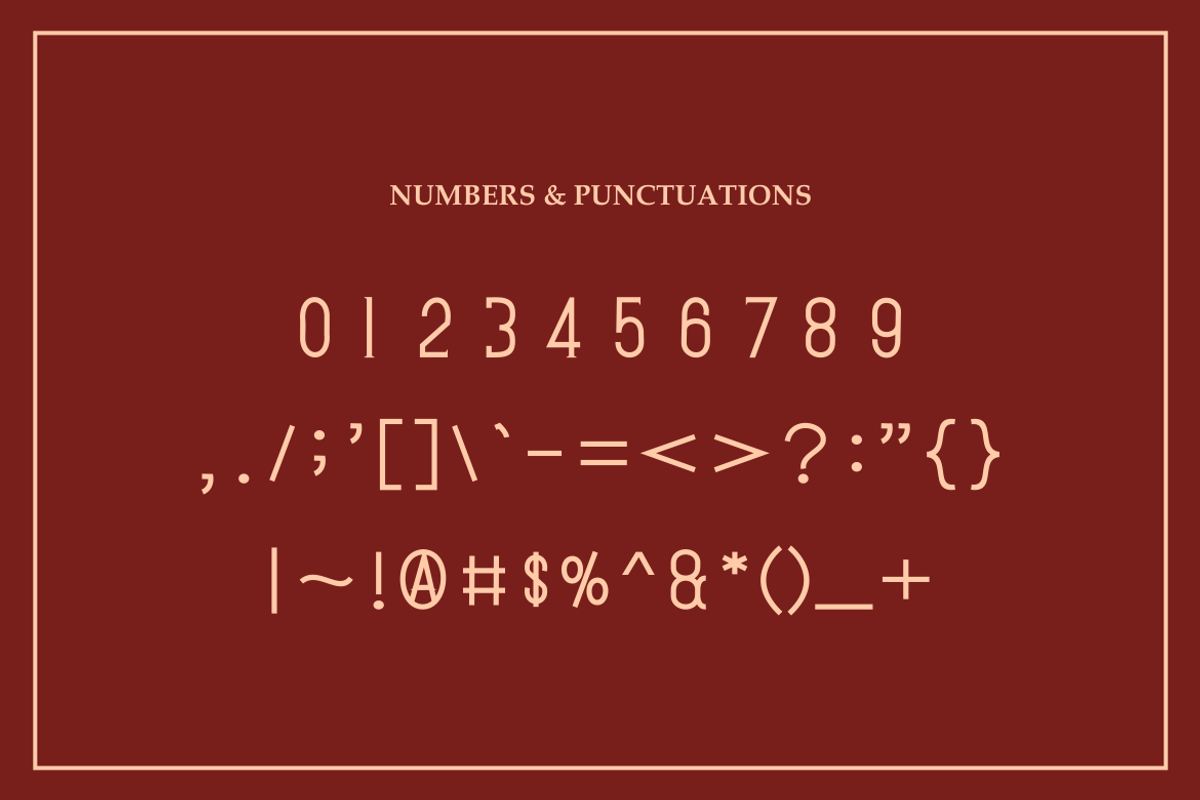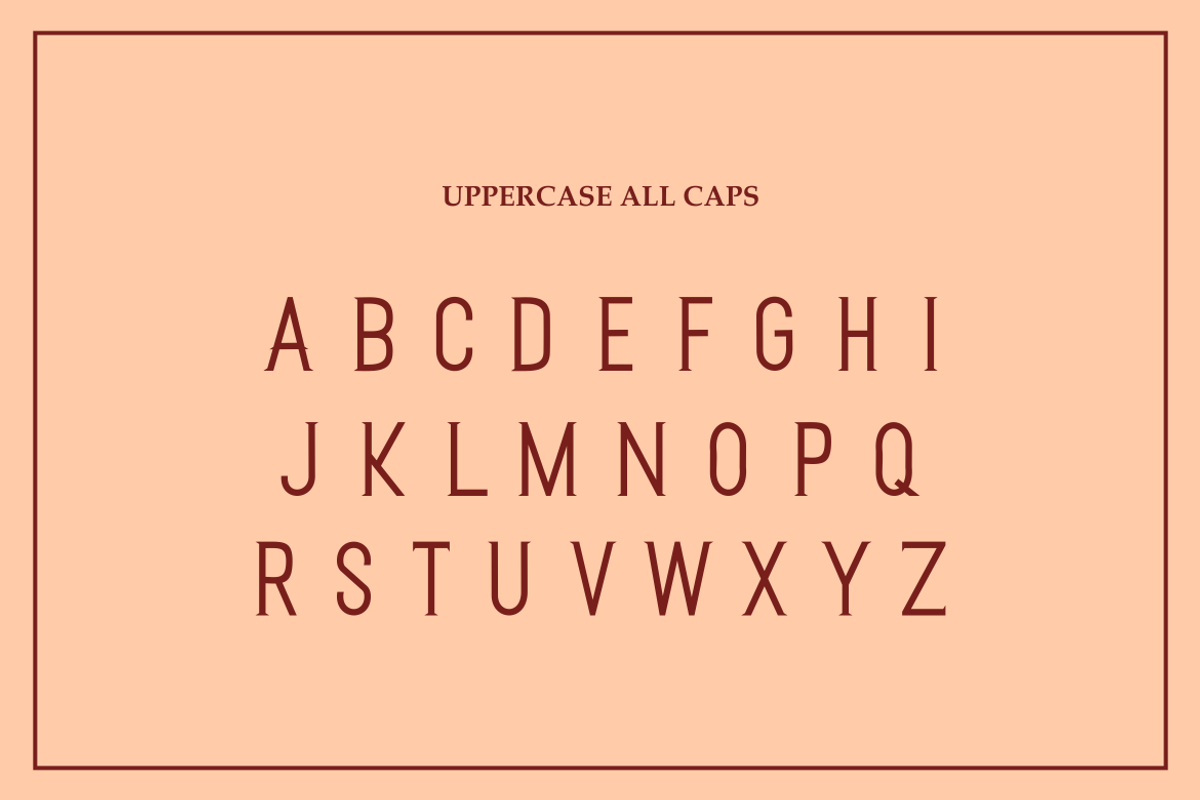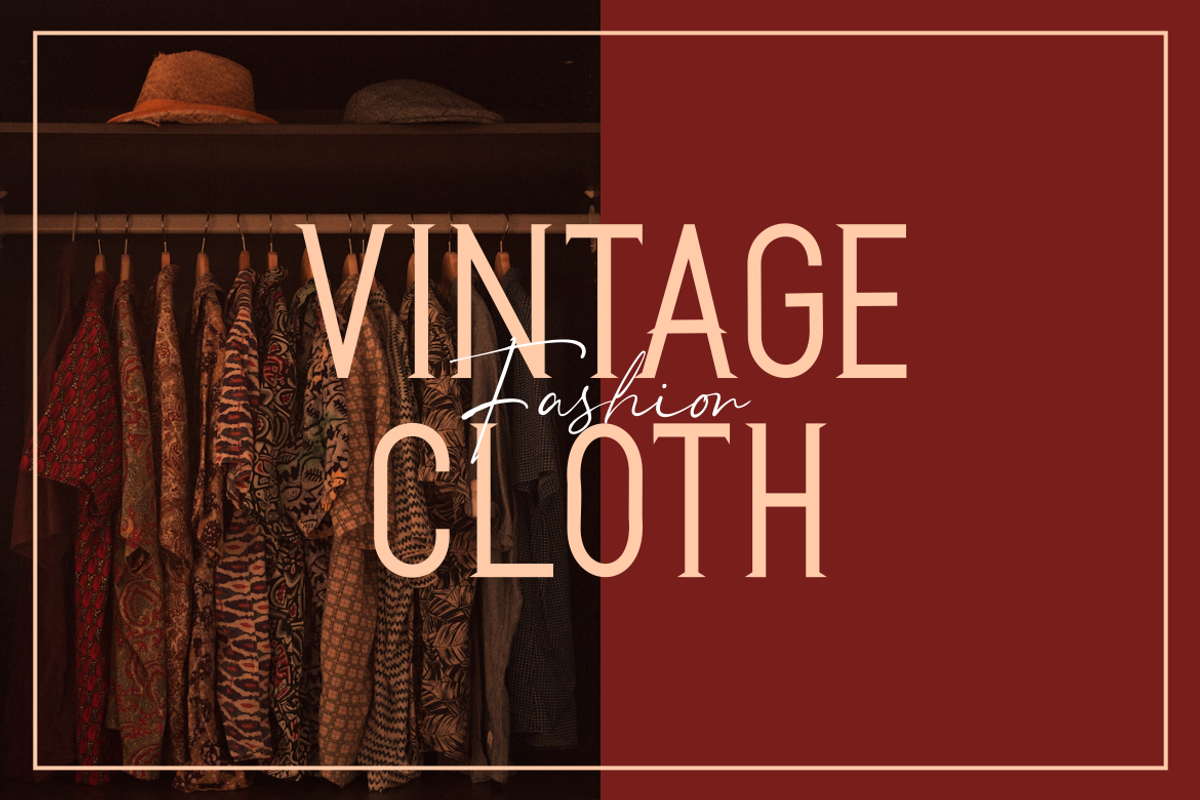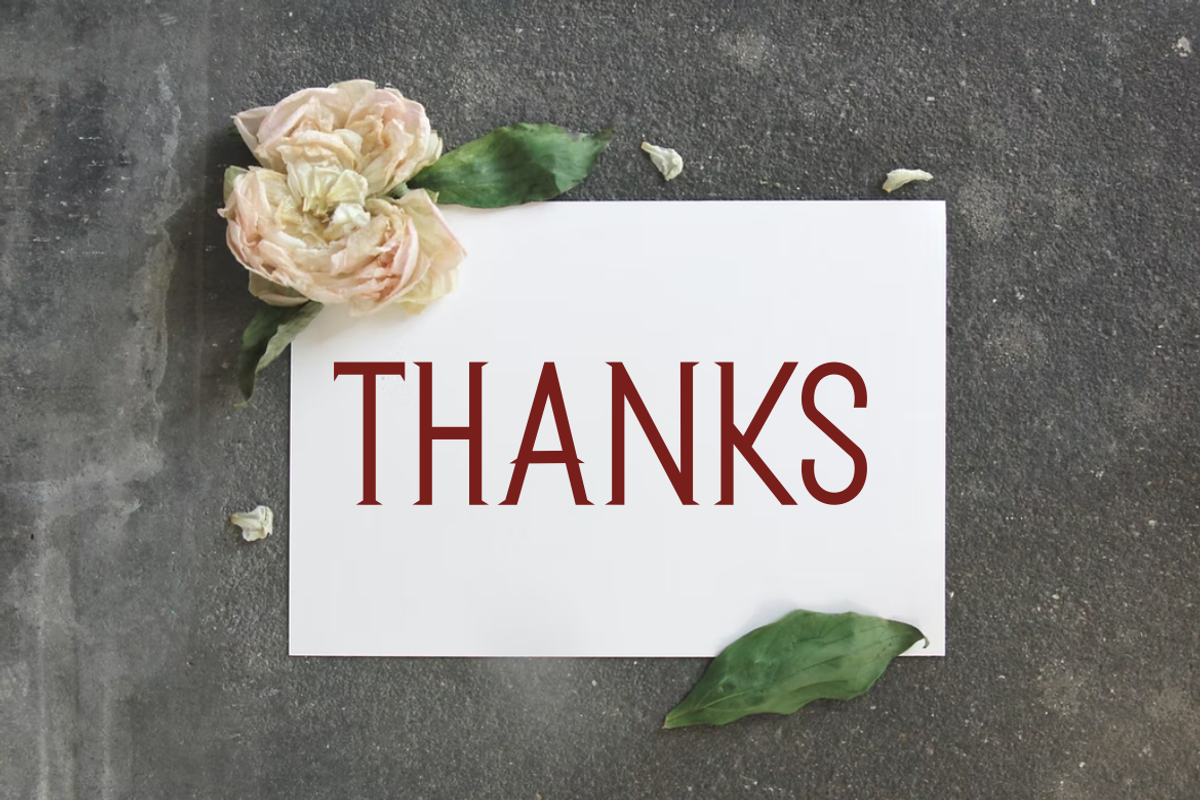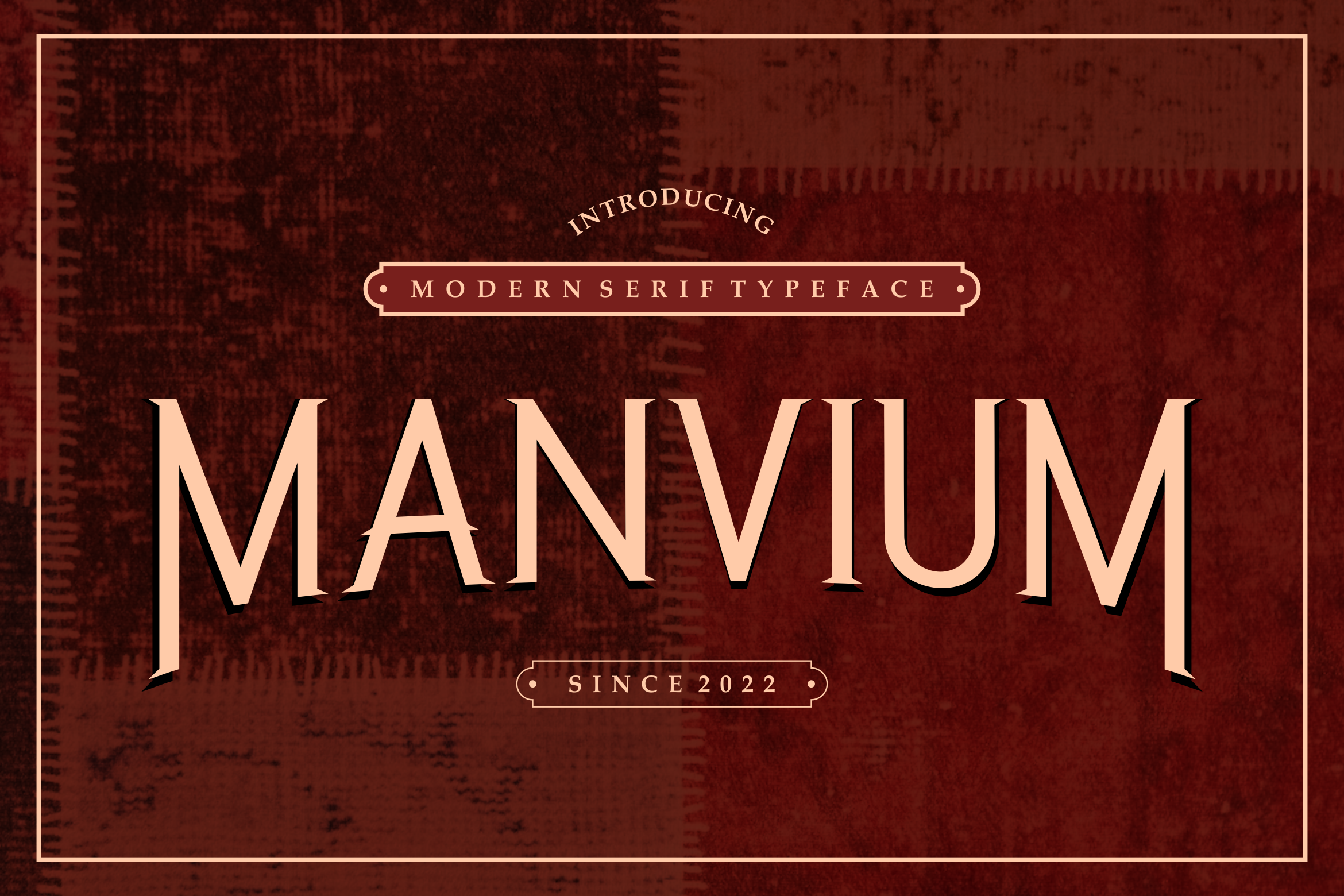
Manvium Font
Introducing our new product Manvium Font - Modern Font
Manvium Font - Modern Font is a bold and authentic display font. The font is suitable for any branding project like logo, esport, and many more. outstanding in a wide range of contexts.